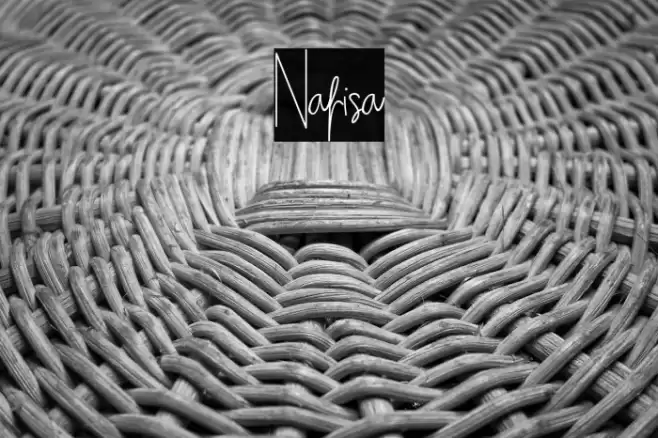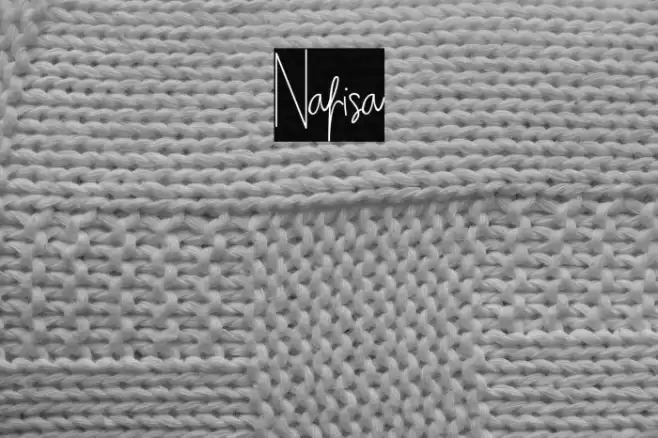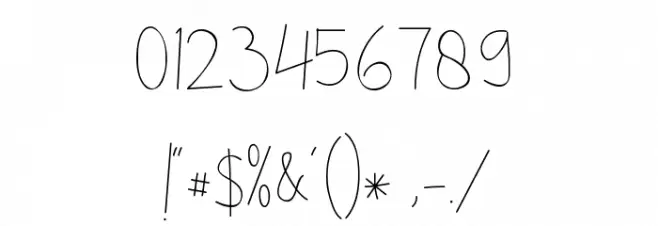
Nafisa Font
Nafisa Description
This font features a playful and whimsical handwritten style, characterized by its tall, narrow letterforms and irregular strokes. The uppercase letters exhibit a unique blend of straight and slightly curved lines, giving them an artistic flair. Lowercase letters maintain a consistent flow, with some characters having distinctive loops and swirls. The numbers are similarly styled, with a quirky touch that complements the overall aesthetic. Special characters are crafted with the same attention to detail, ensuring a cohesive look across all glyphs. This font's thin strokes and airy design make it stand out, offering a modern yet casual vibe.
A playful, handwritten font with tall, narrow letterforms and whimsical strokes from Regular fonts.
- Weight: Light
- Character Spacing: Wide
- Use Case: Logos, Headlines, Creative projects